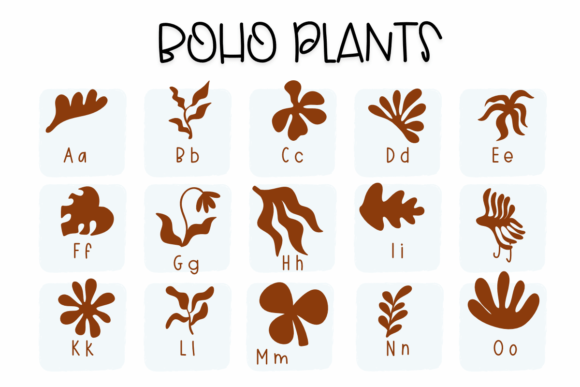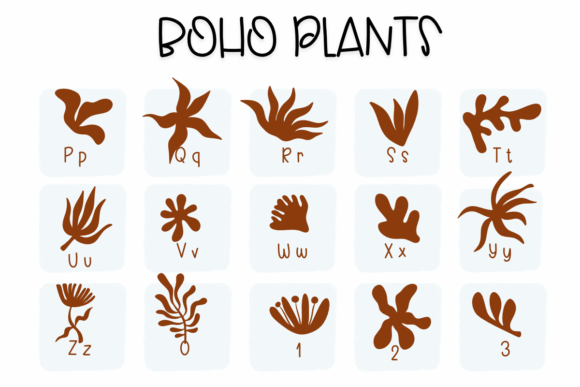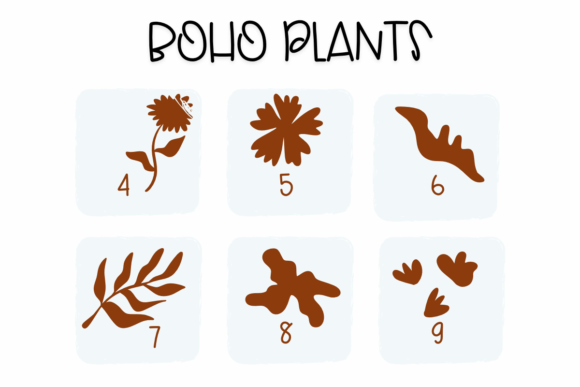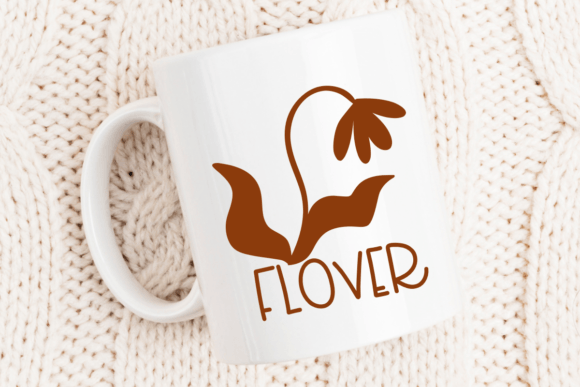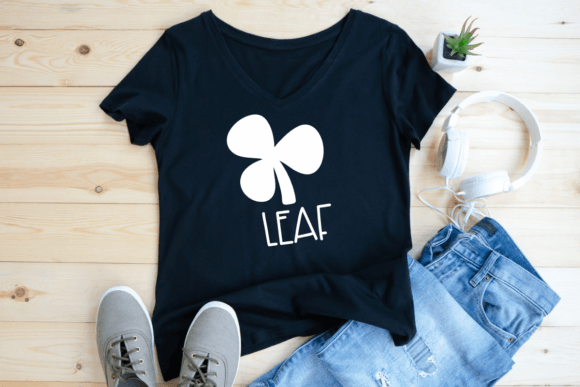
Introducing Boho Plans Font: Elevate Your Creative Projects with a Sketched Twist
Are you a designer, crafter, or DIY enthusiast looking for a unique font to add a personal touch to your creative projects? Look no further than Boho Plans Font, a beautiful dingbats font with a sketched theme. This versatile font is perfect for a wide range of applications, from wedding invitations and decorations to logos and craft designs.
What is Boho Plans Font?
Boho Plans Font is a dingbats font that features sketched illustrations, giving it a charming and hand-drawn feel. The font is designed to add a touch of bohemian flair to your projects, making it ideal for those who love eclectic and vintage-inspired designs. With its unique and artistic style, Boho Plans Font is sure to make your creations stand out.
Uses for Boho Plans Font
Boho Plans Font is incredibly versatile and can be used for a variety of creative projects, including:
- Wedding Invitations: Add a personal touch to your wedding invitations, save-the-dates, and thank-you cards with Boho Plans Font.
- DIY and Crafts: Use Boho Plans Font to create custom labels, tags, and decorations for your DIY projects.
- Decorations: Add a bohemian touch to your party decorations, garlands, and banners.
- Logos and Branding: Use Boho Plans Font to create unique and eye-catching logos for your business or brand.
- Stationery and Gift Tags: Create custom stationery, gift tags, and cards with Boho Plans Font.
Features of Boho Plans Font
Boho Plans Font offers a range of features that make it a great choice for designers and crafters:
- Unique Sketched Style: Boho Plans Font features a distinctive sketched style that adds a personal touch to your projects.
- Dingbats Illustrations: The font includes a range of dingbats illustrations that can be used to add visual interest to your designs.
- Scalable: The font is scalable, allowing you to use it for a wide range of projects, from small gift tags to large banners.
Tips for Using Boho Plans Font
Here are some tips for getting the most out of Boho Plans Font:
- Experiment with Colors: Boho Plans Font looks great in a range of colors, so don’t be afraid to experiment and find the perfect hue for your project.
- Mix and Match: Combine Boho Plans Font with other fonts and illustrations to create a unique and eye-catching design.
- Use for Headlines and Titles: Boho Plans Font is perfect for headlines and titles, adding a touch of personality to your text.
- Add to Your Design Toolkit: Boho Plans Font is a versatile font that can be used for a wide range of projects, making it a great addition to your design toolkit.
Boho Plans Font is a beautiful and versatile dingbats font that can add a touch of bohemian flair to your creative projects. With its unique sketched style, range of dingbats illustrations, and ease of use, Boho Plans Font is perfect for designers, crafters, and DIY enthusiasts. Whether you’re creating wedding invitations, decorations, logos, or craft designs, Boho Plans Font is sure to elevate your projects and make them stand out.